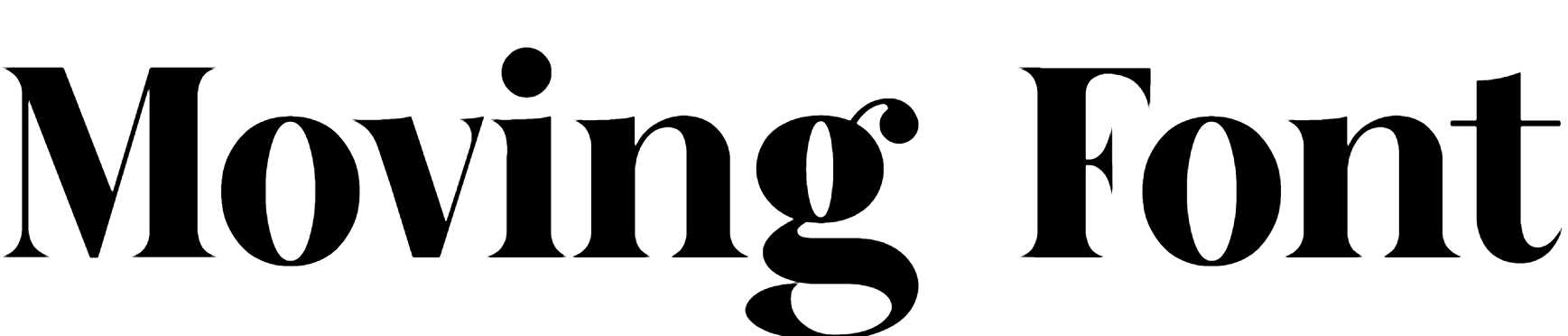
Moving
Moving is a serif font created by Usman Albaehaqi and released through Graphicxell (2023). Small strokes at the ends of its letters (the serifs) give it a classic, trustworthy look. It's a free download, and you can try it with your own text in the preview above first.
What You Can Type With Moving
With complete upper and lowercase letters and all ten digits, Moving is ready for real wording, not just a single headline. Common punctuation such as &, !, ? and @ is included as well. It also has the accented letters you need for Spanish, French, German, Portuguese and Italian.
Where Moving Works Best
Designers usually reach for fonts like Moving when they're making book covers, magazine headlines and classic branding. Its lowercase letters are tall compared to the capitals, which keeps it readable at smaller sizes. Serif fonts shine in headlines and printed text. For long paragraphs on phones, check that it still reads well at small sizes.
Who designed Moving font?
Does Moving support accented letters?
Yes. Moving includes the accented letters needed for Spanish, French, German, Portuguese and Italian, so it works for more than just English.